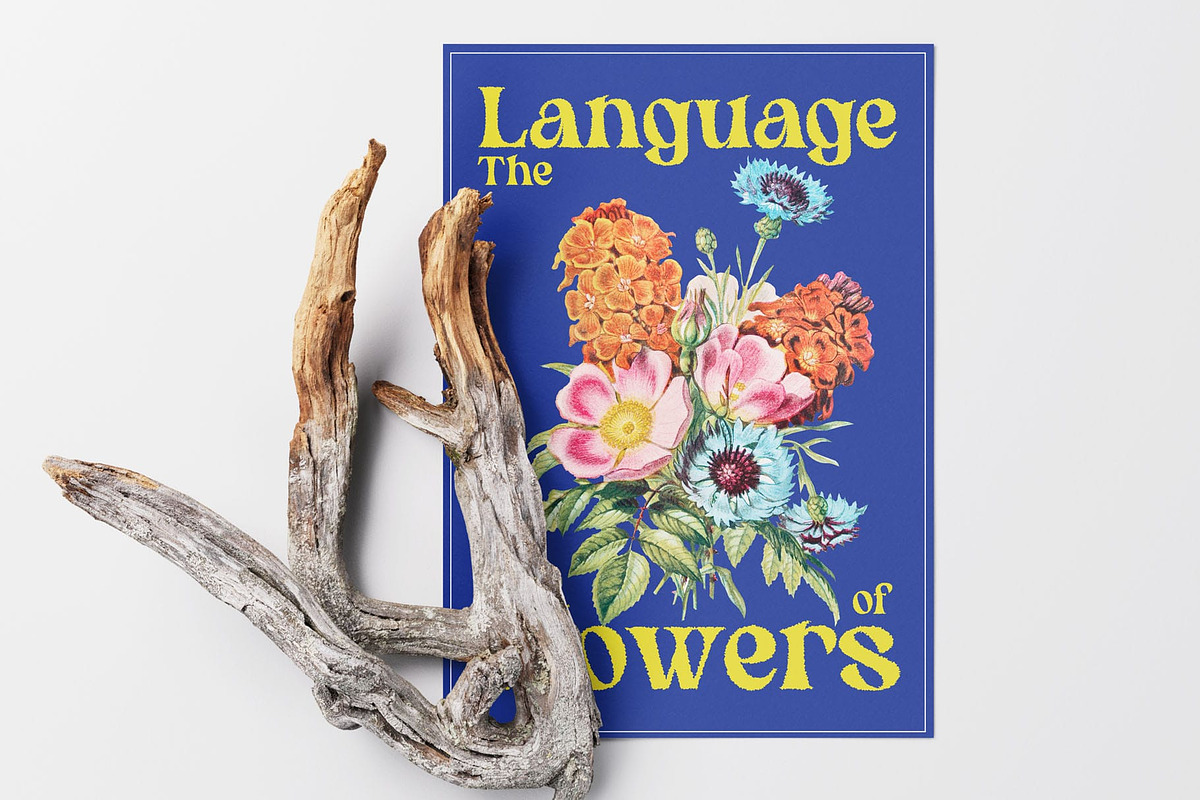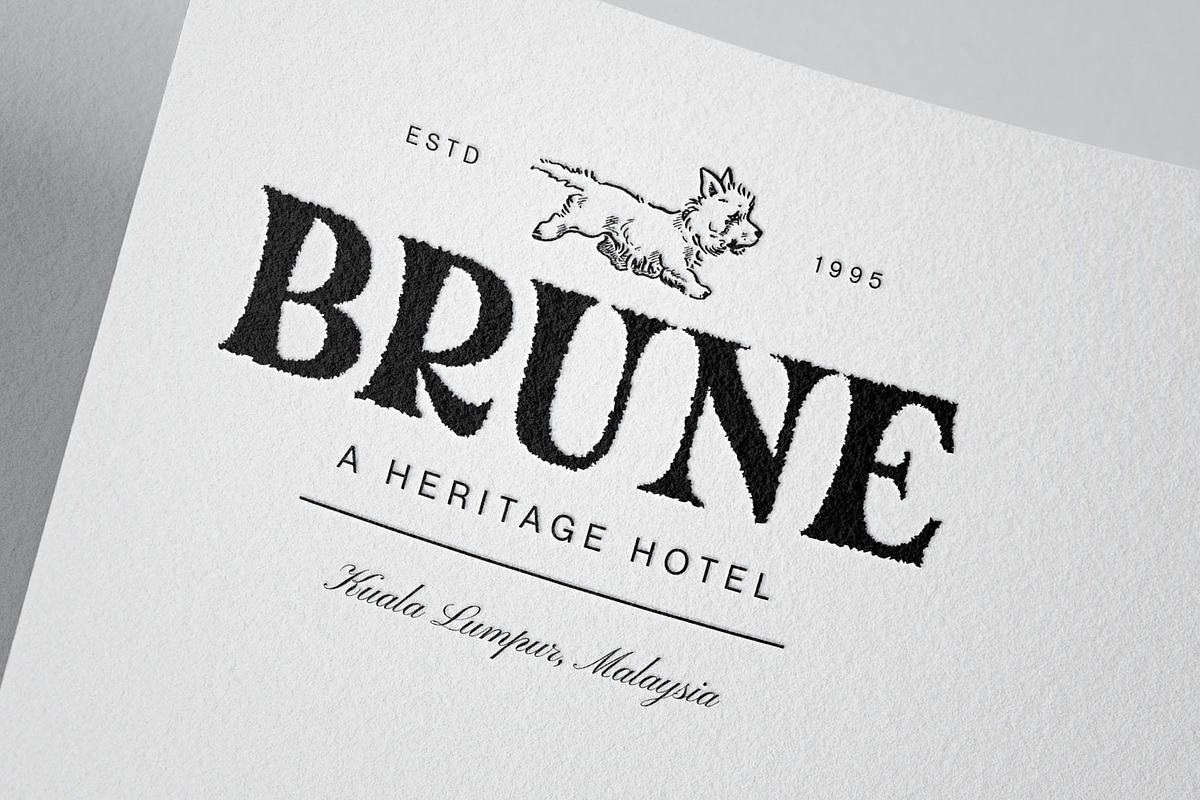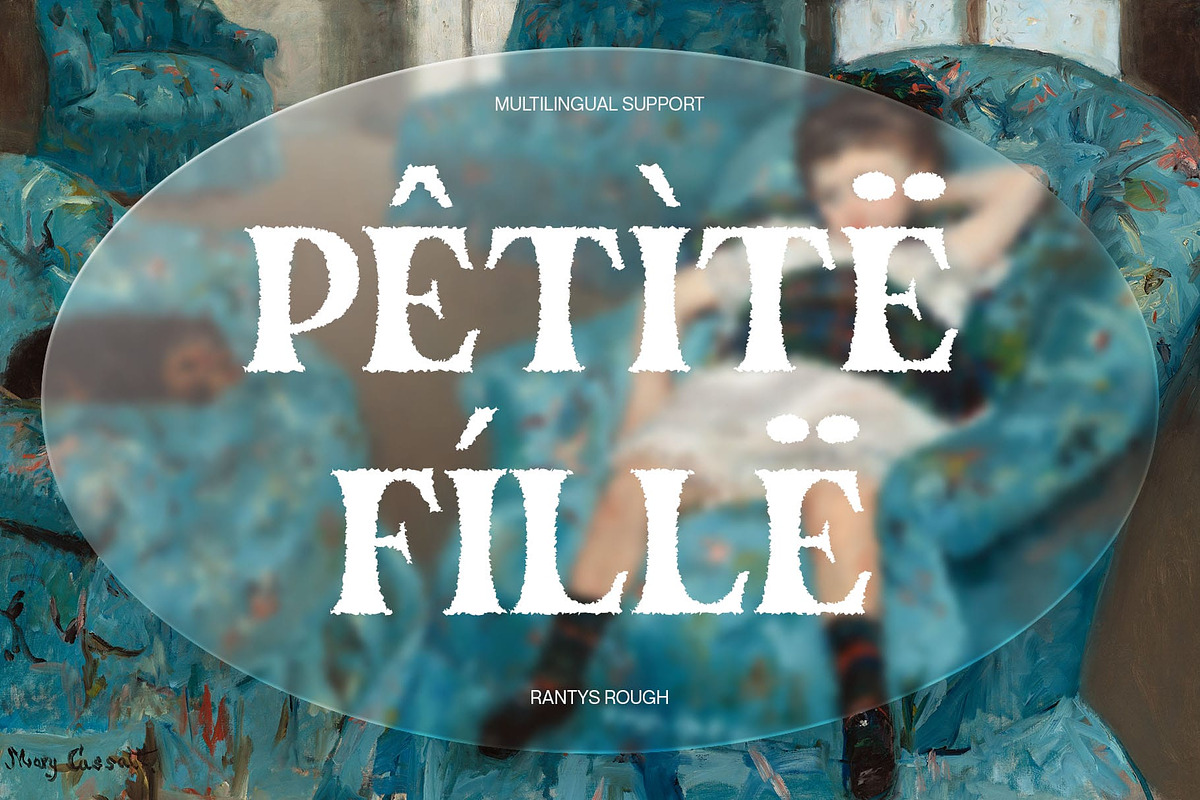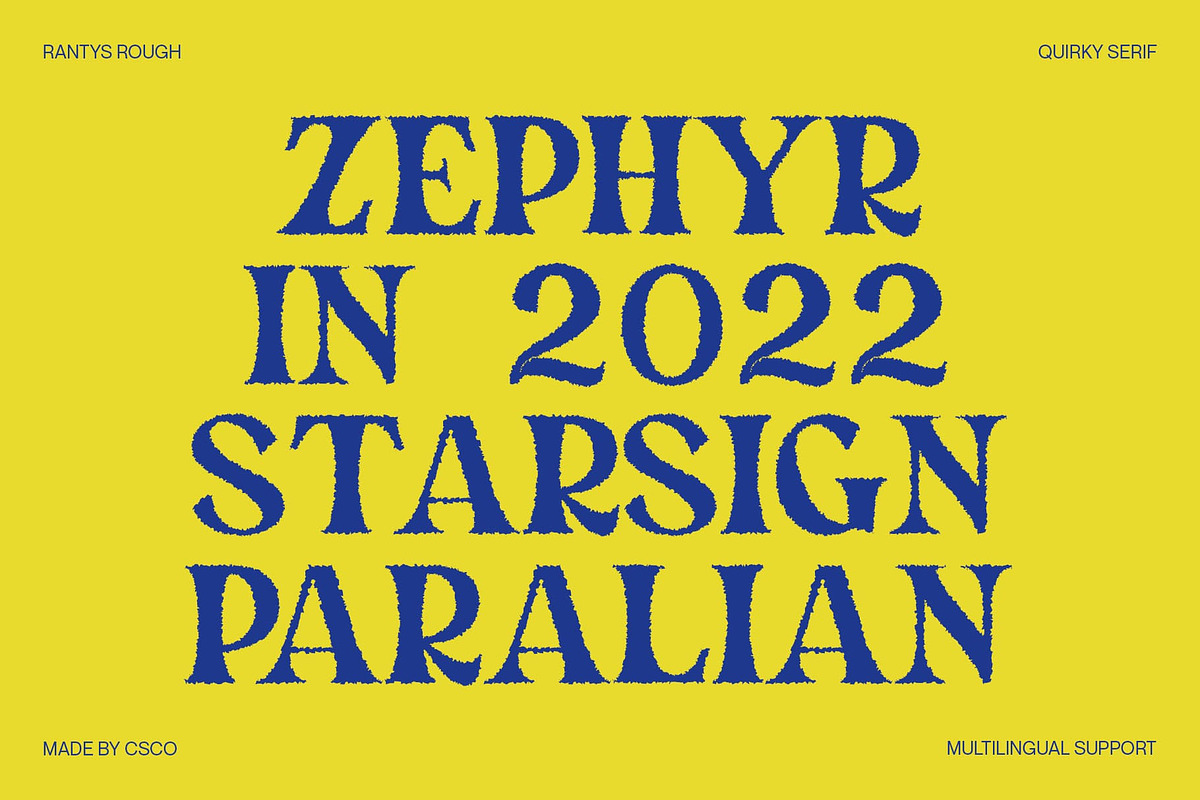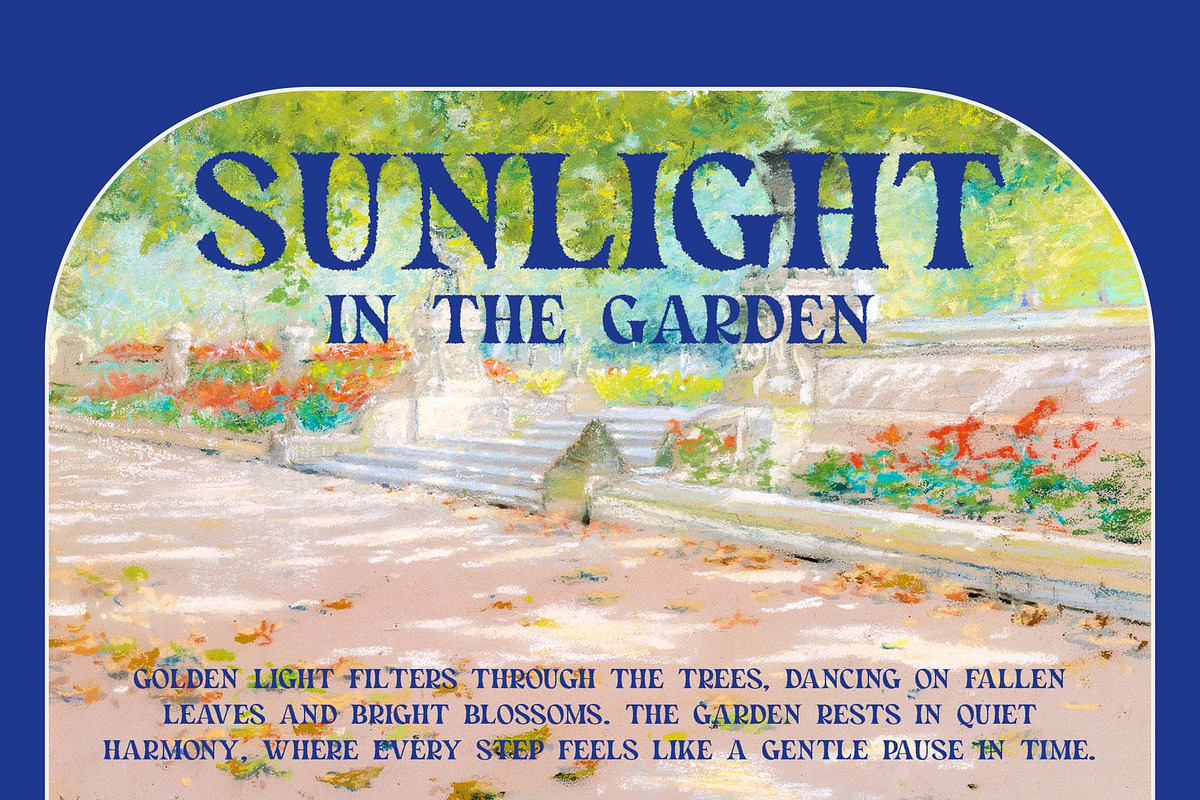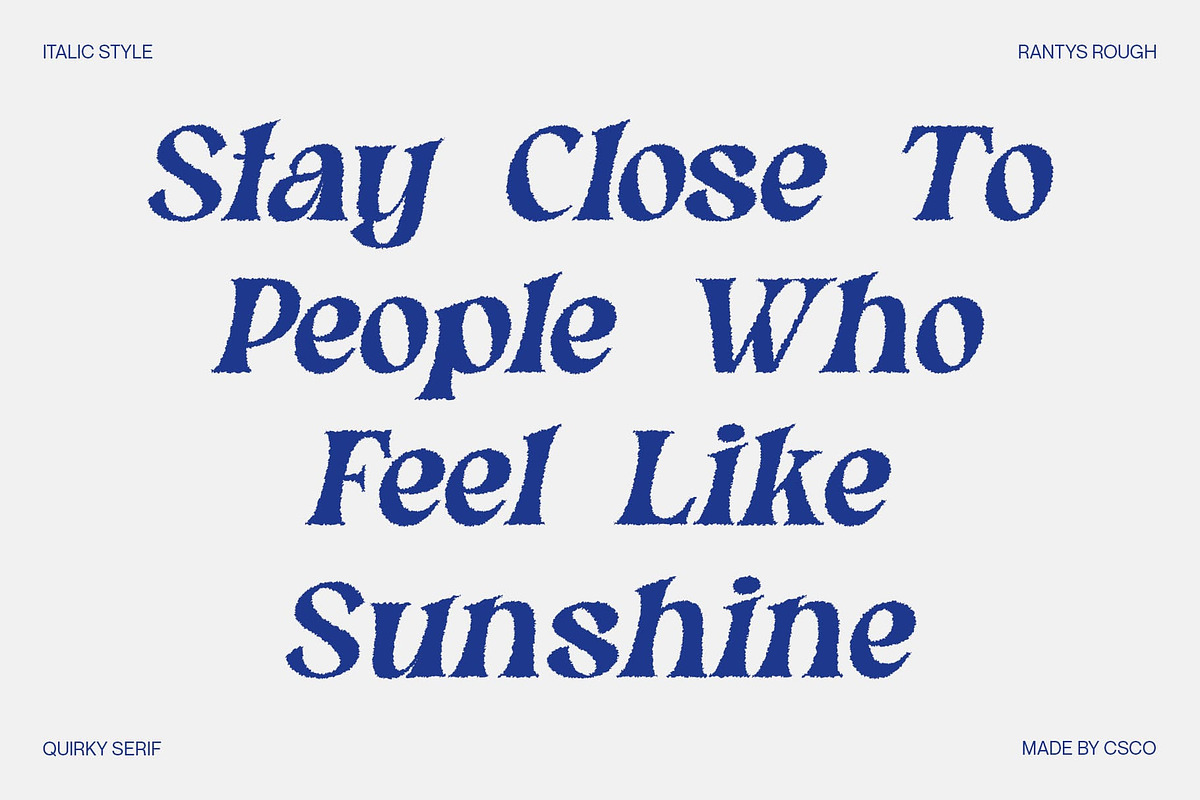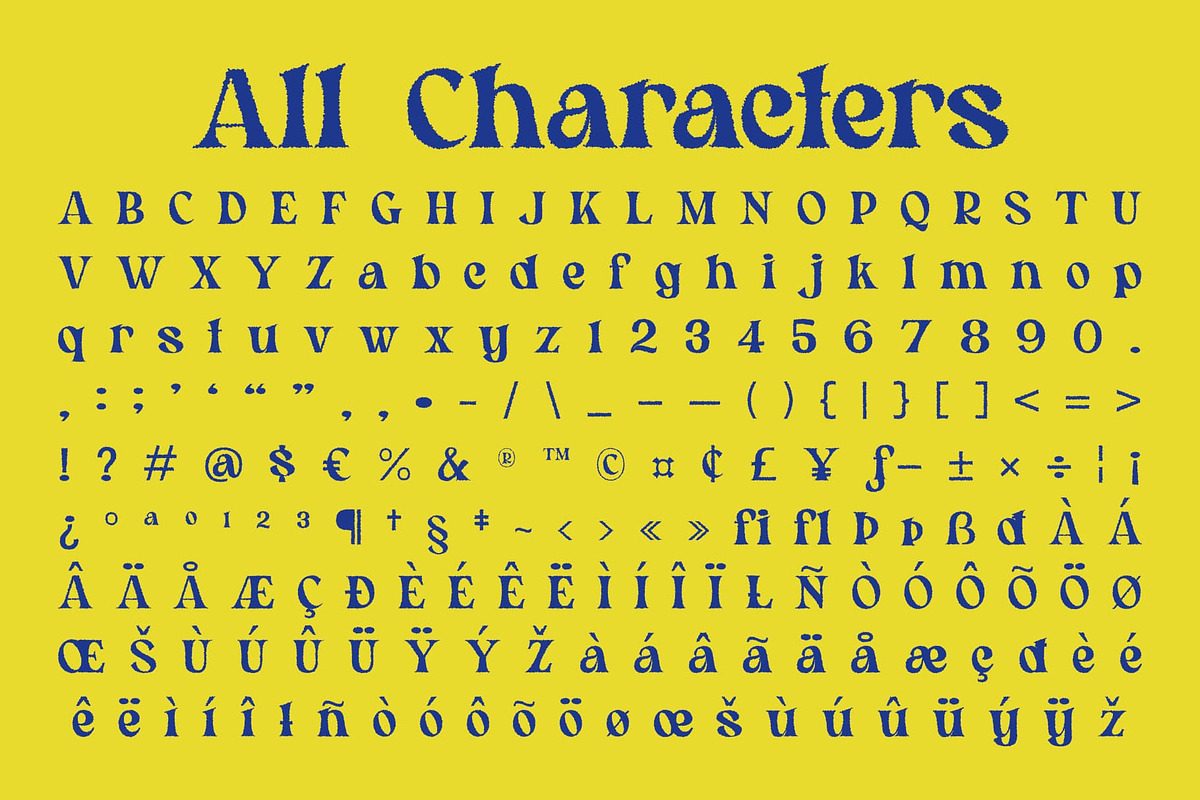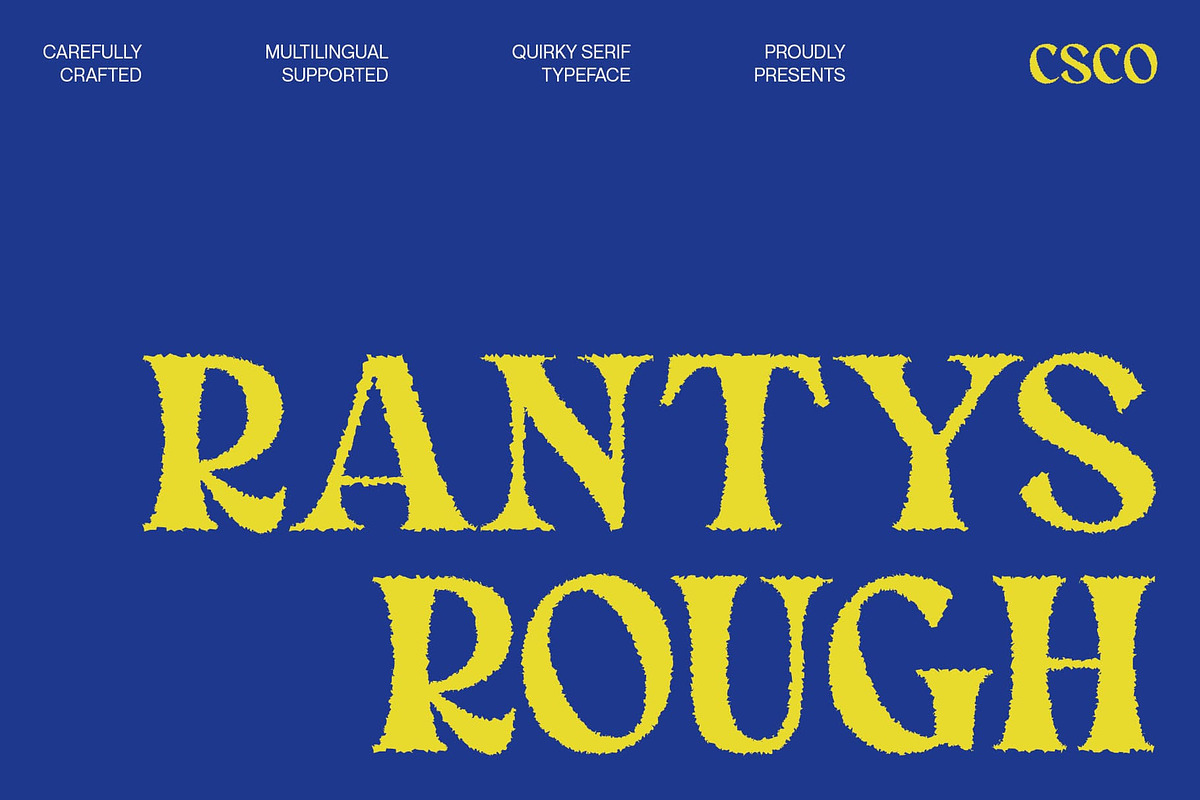
Rantys Rough
Rantys Rough Font – Classic Quirk with a Handcrafted Edge
Classic Serif Meets Expressive Design Rantys Rough Font draws inspiration from traditional serif typography but adds a bold, quirky twist. Its exaggerated letterforms and unconventional shapes deliver a sense of individuality and flair, making it stand out from standard serif fonts. The bold weight reinforces its presence, perfect for headlines and creative statements.
Eccentric Proportions for Artistic Impact What makes Rantys Rough truly unique is its playful proportions and unexpected detailing. These subtle distortions give the font an artistic, offbeat character that breaks away from formality while still honoring its serif roots. It’s a typeface that feels both familiar and refreshingly different.
Rough Texture for a Vintage, Organic Feel A handcrafted rough effect overlays the font, adding texture and imperfection to its expressive structure. This gritty finish enhances the font’s organic quality, giving it a weathered, vintage vibe that feels raw and authentic—ideal for projects that aim to look handmade and full of soul.
Perfect for Bold and Creative Visuals Rantys Rough is made for visual storytelling. Whether used in posters, editorial layouts, or branding with character, it brings energy and uniqueness to the design. Its balance of classical structure, expressive form, and textured finish makes it a versatile choice for projects that want to be bold, artistic, and full of personality.